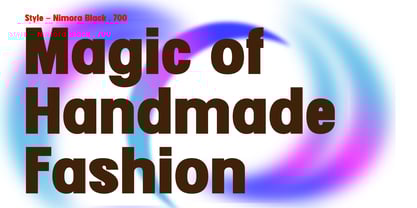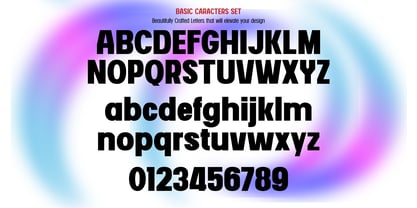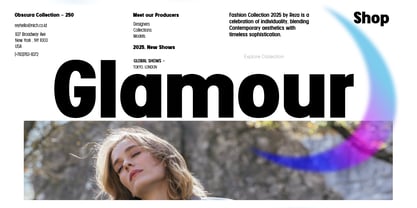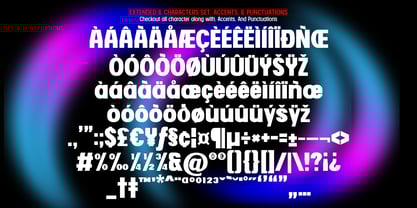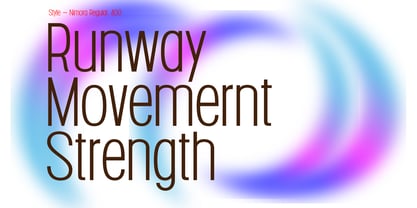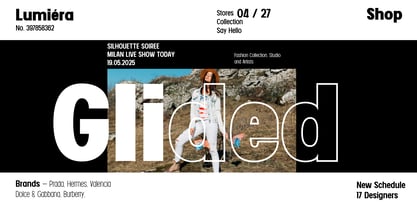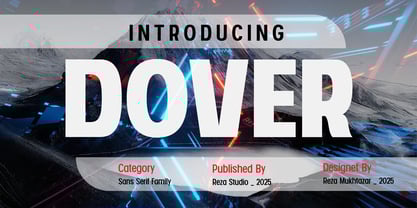
Dover
The Dover Font Family was designed by Reza Mukhtazar and published by Rezastudio. Dover contains 12 styles and family package options. More about this family
DOVER is a clean and contemporary sans serif typeface family designed for flexibility and modern aesthetics. With 12 total styles and full variable font support, DOVER gives you complete control over weight, width, and expression — making it perfect for branding, editorial design, websites, apps, and more.
Crafted with precision, DOVER combines geometric structure with smooth curves, resulting in a font that feels both futuristic and highly functional.
Key Features:
• 12 font styles (including uprights and italics)
• Multilingual support
• Perfect for UI/UX, posters, logos, packaging, and editorial design
Bring a sleek, modern edge to your next design project with DOVER